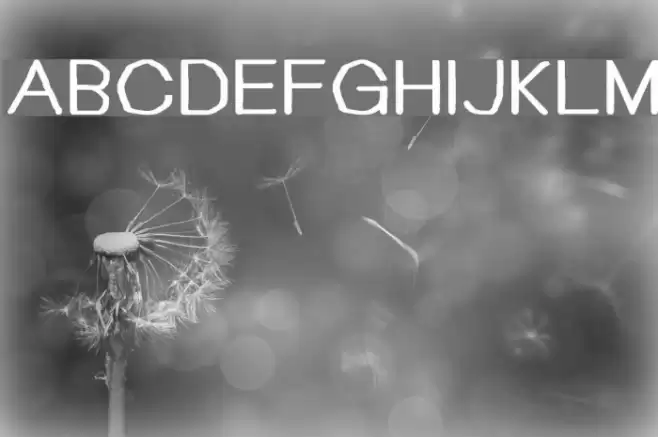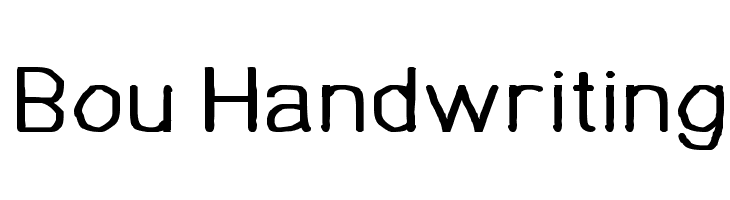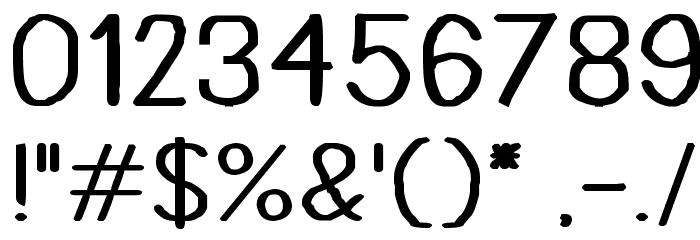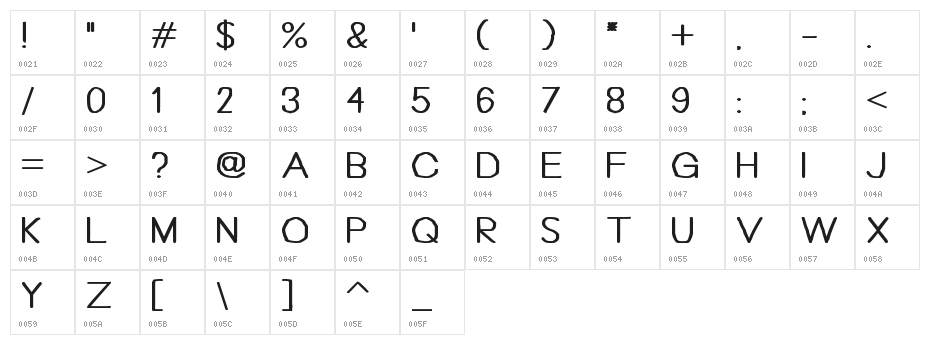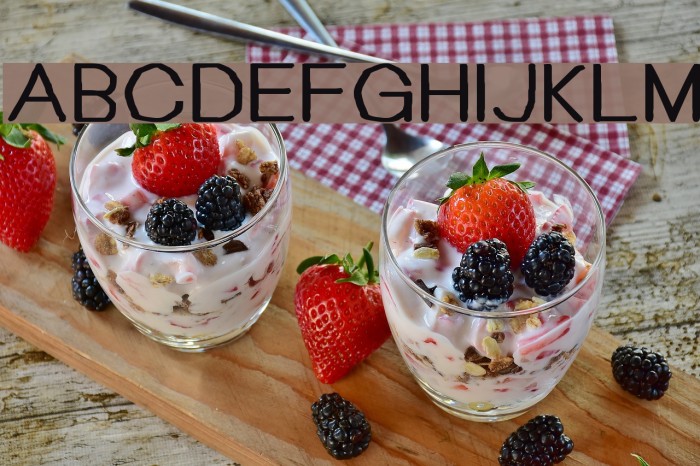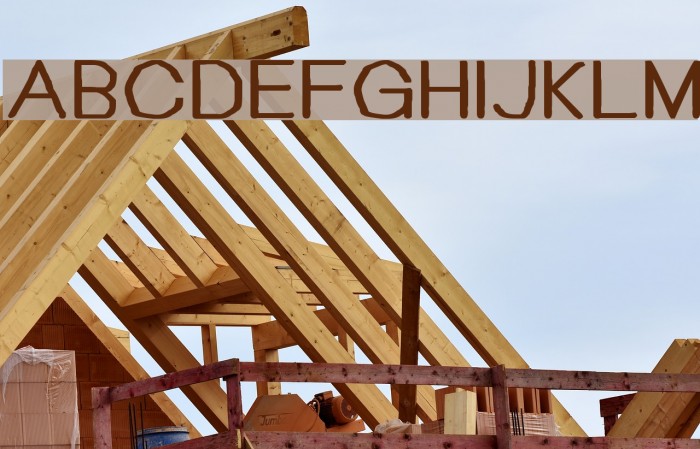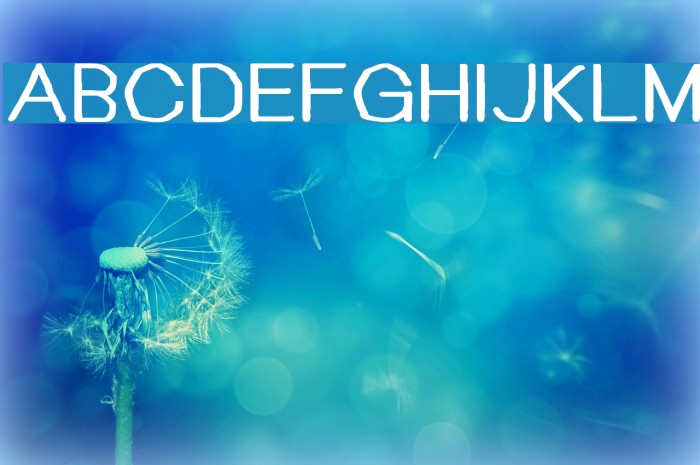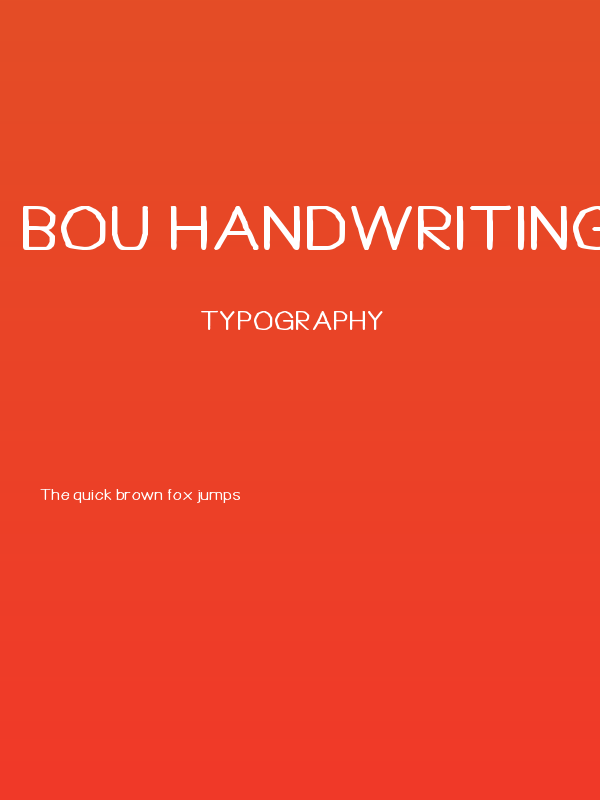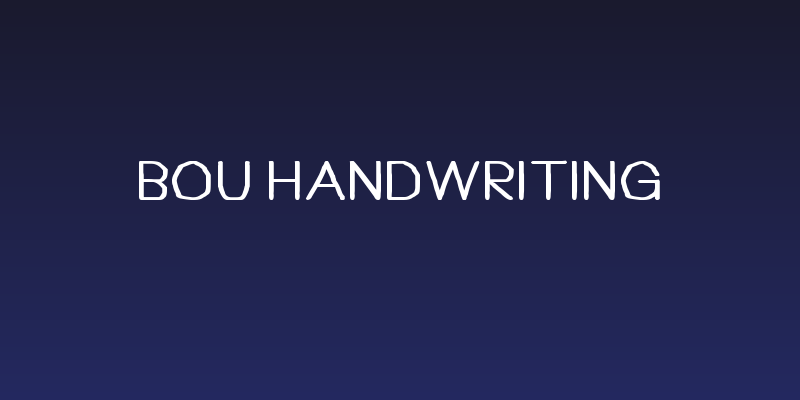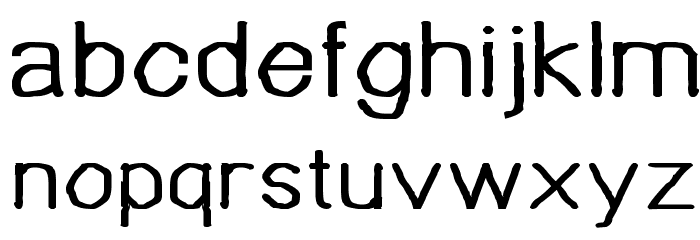
Bou Handwriting Font
Bou Handwriting Description
This font features a handwritten style with a casual and organic appearance. The characters are slightly irregular, giving it a personal and approachable feel. The uppercase letters are bold and distinct, while the lowercase letters maintain a consistent flow, enhancing readability. The numbers are clear and well-defined, matching the overall style of the alphabet. Special characters are included, maintaining the same handwritten aesthetic. This font is versatile, suitable for projects that require a personal touch or a creative flair.
A casual handwritten font with a personal and organic style from Handwritten fonts.
- Proposed Projects: Ideal for greeting cards, personal branding, creative projects, and informal invitations.
- Overall Style: Casual, Organic
- Use Case: Logos, Invitations, Creative Projects